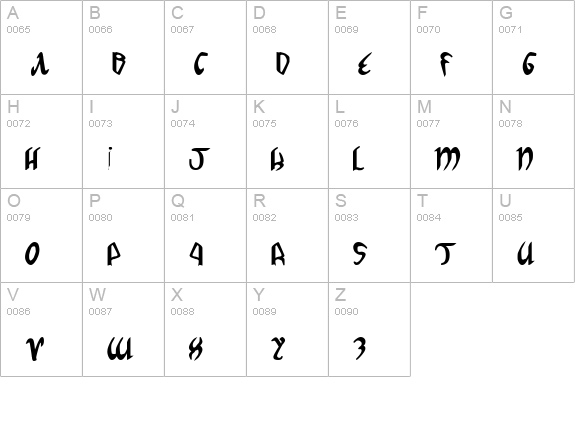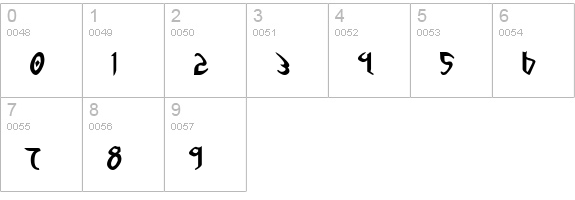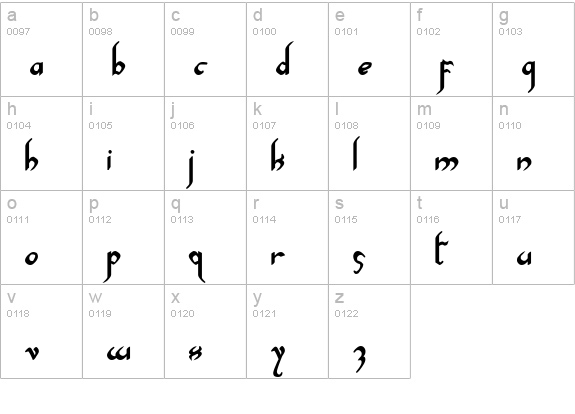
Xaphan II Bold is a strong, high-contrast variant in the Xaphan typeface family \xE2\x80\x94 well suited to headlines, attention-grabbing titles, and strong calls-to-action.
Xaphan II Bold font is a striking and versatile typeface that exudes power and sophistication. Its strong, bold strokes make a bold statement while maintaining a sense of elegance and modernity. Perfect for headlines, titles, and branding projects, Xaphan II Bold commands attention and leaves a lasting impression. What sets Xaphan II Bold font apart is not just its design, but also the fact that it is available for free download at FontsMarket.com. This means you can easily access and use this high-quality font for your personal and commercial projects without any cost. Whether you're a designer looking to add a touch of boldness to your creations or a business owner seeking a standout font for your marketing materials, Xaphan II Bold font is the perfect choice. Download it today and elevate your designs with this exceptional typeface.